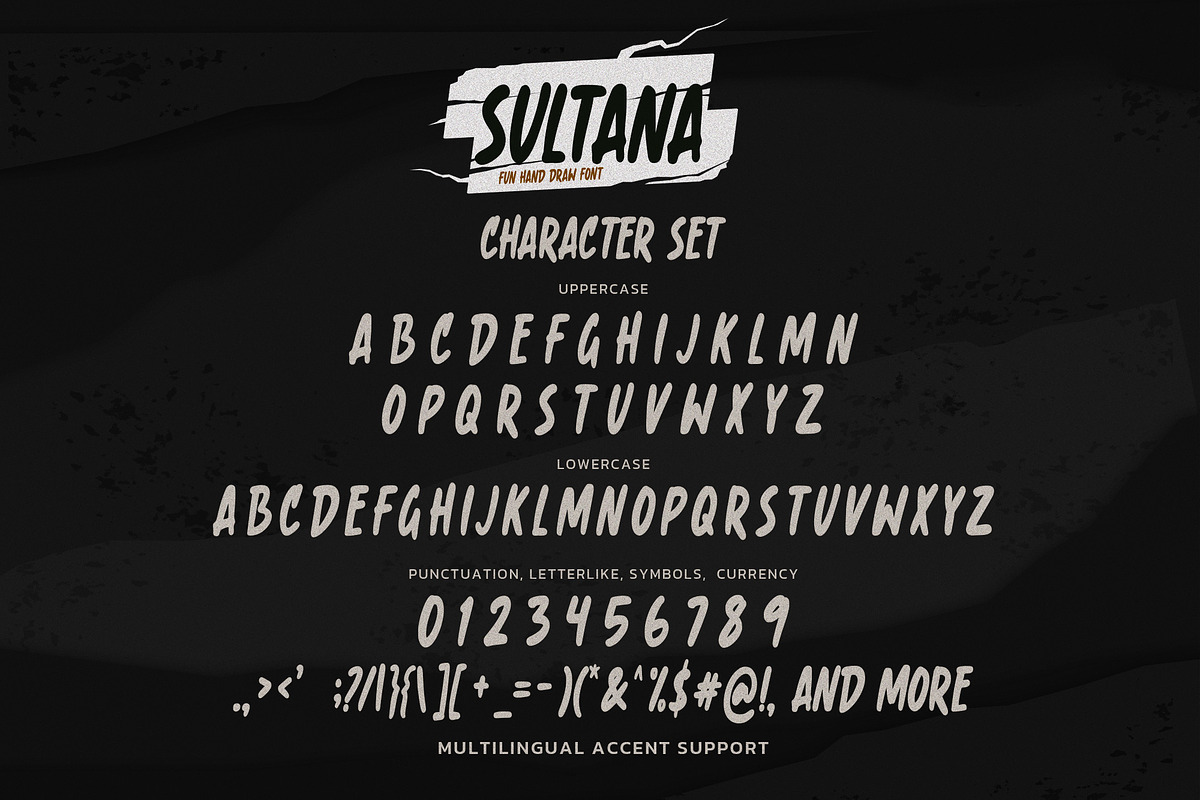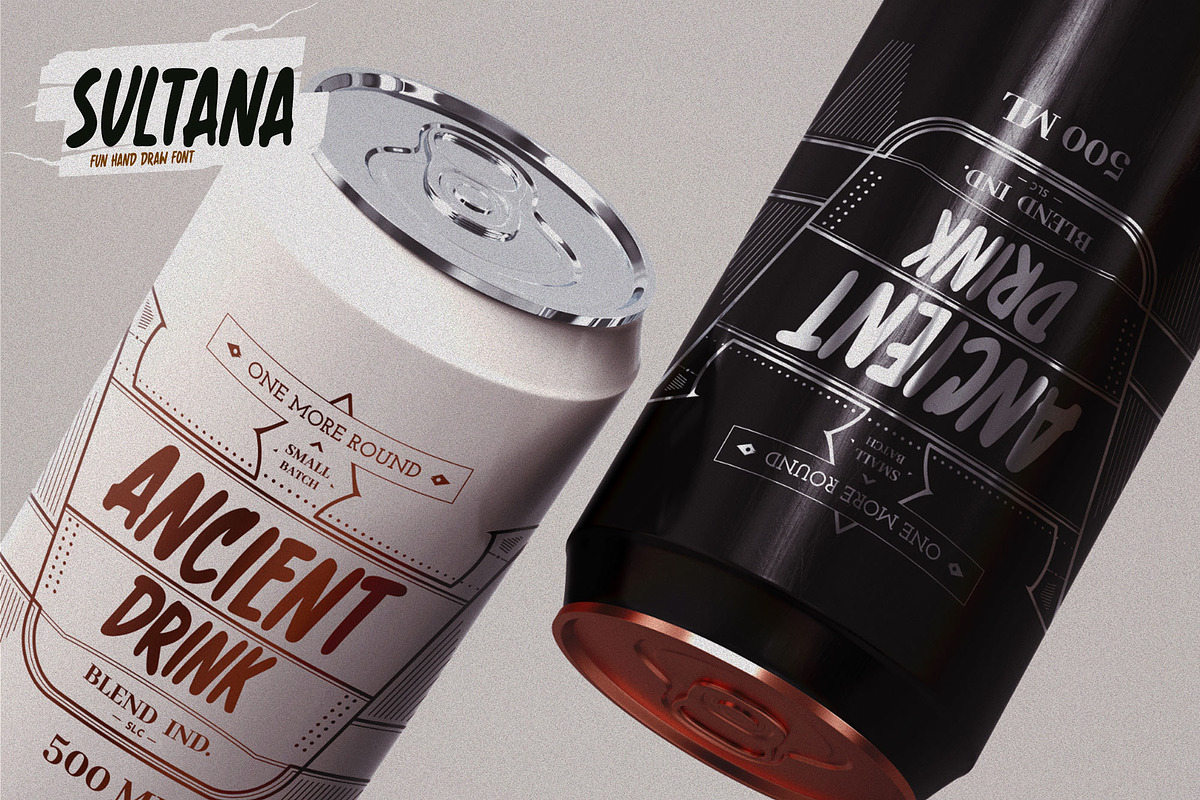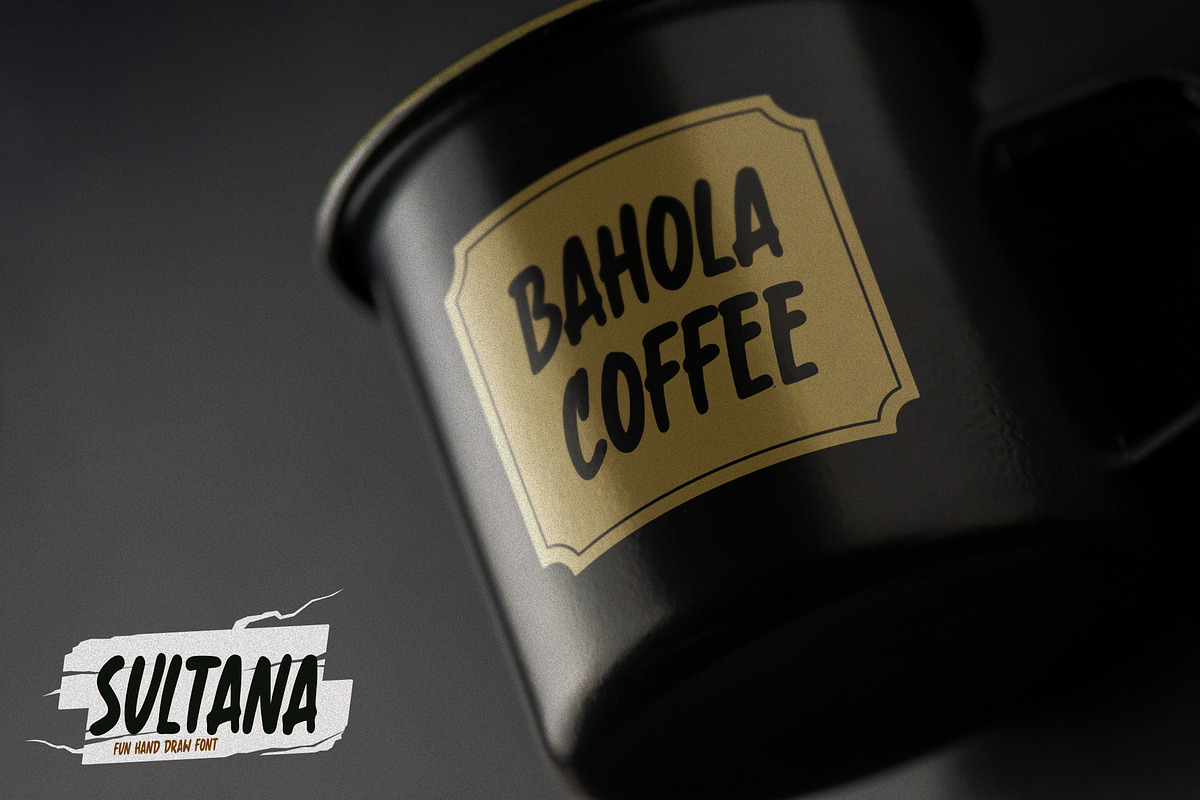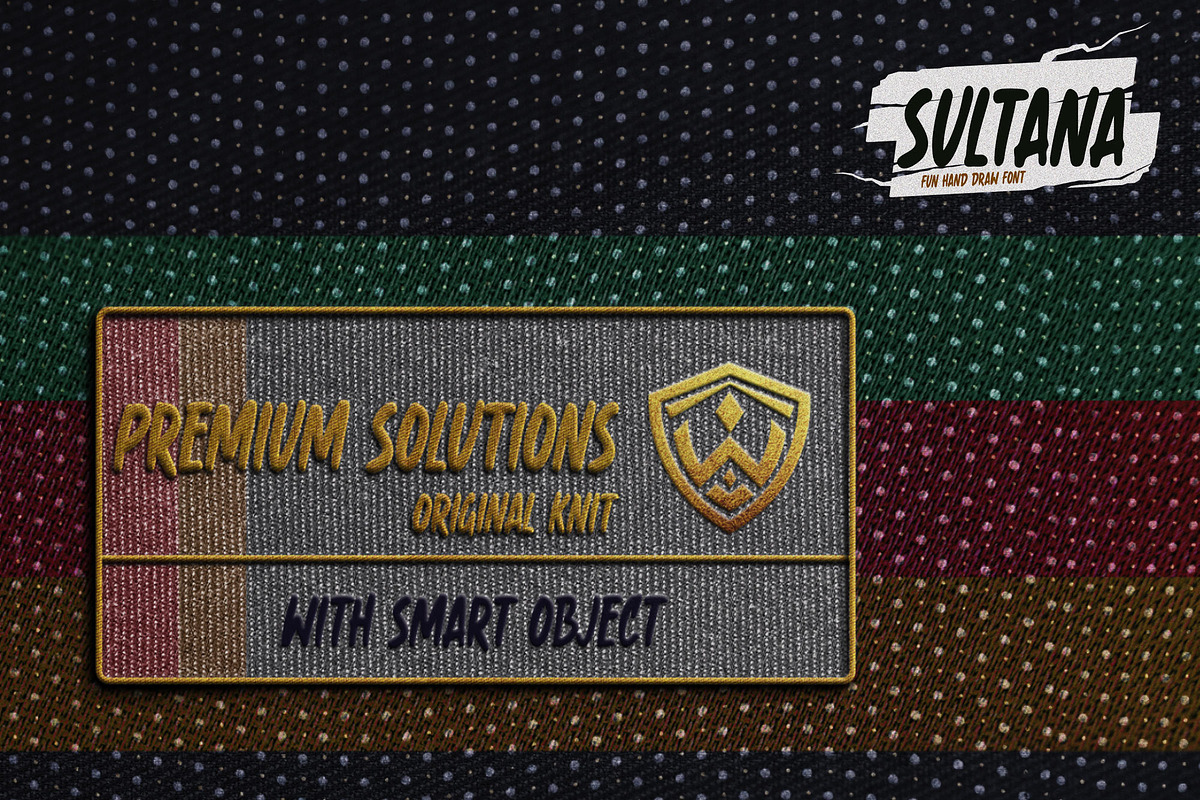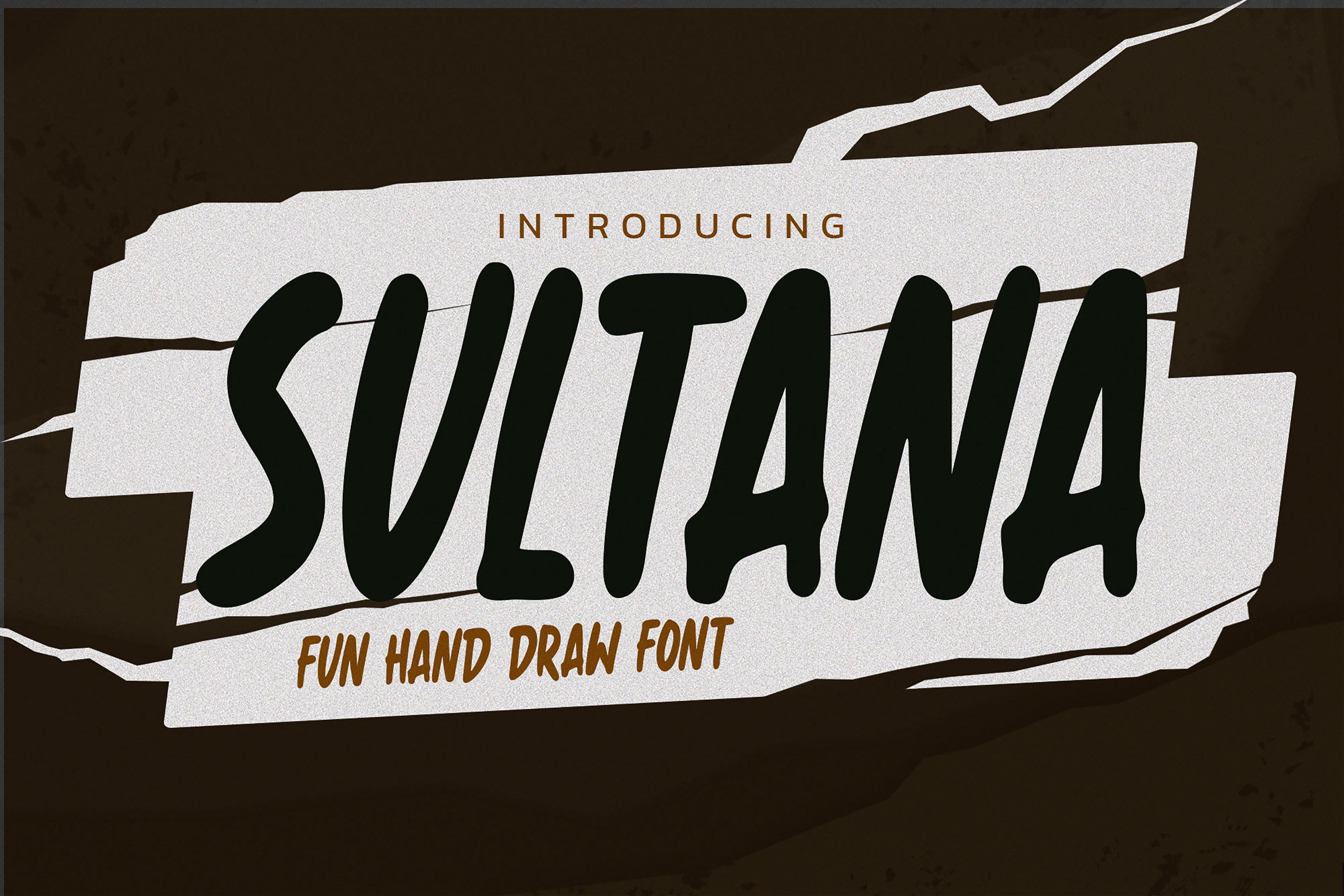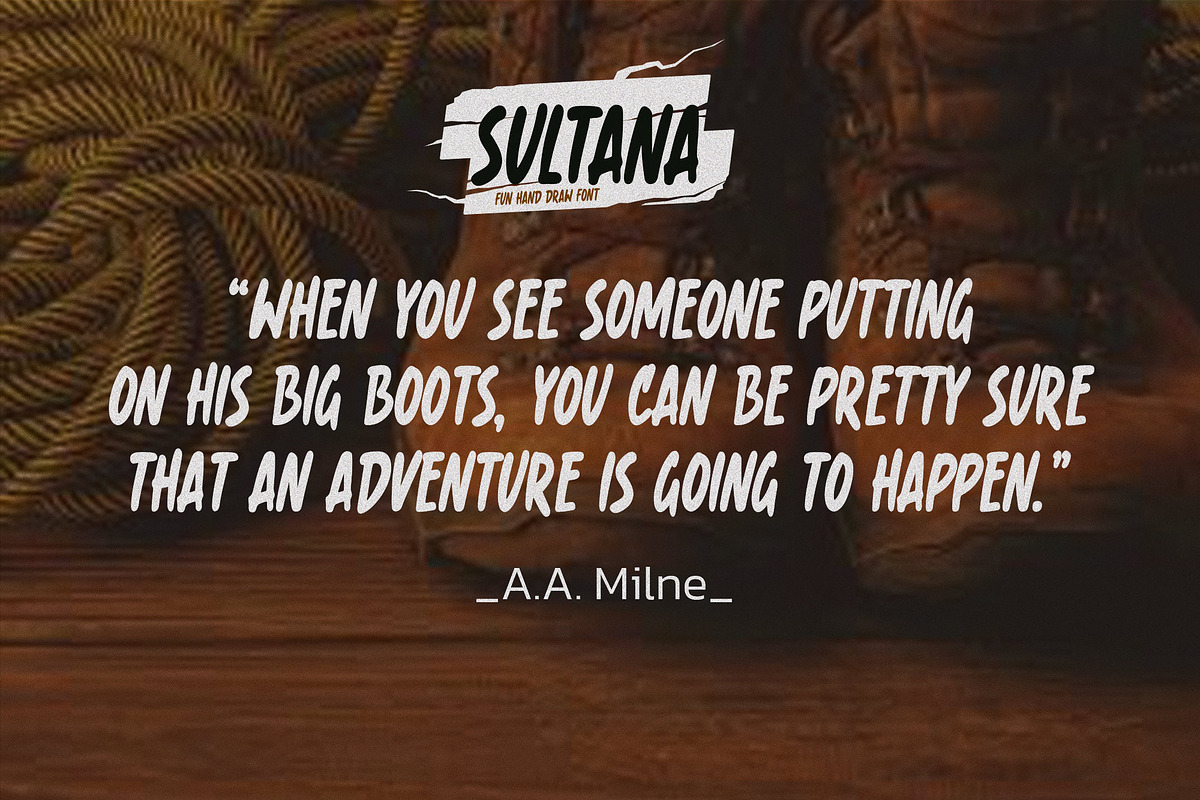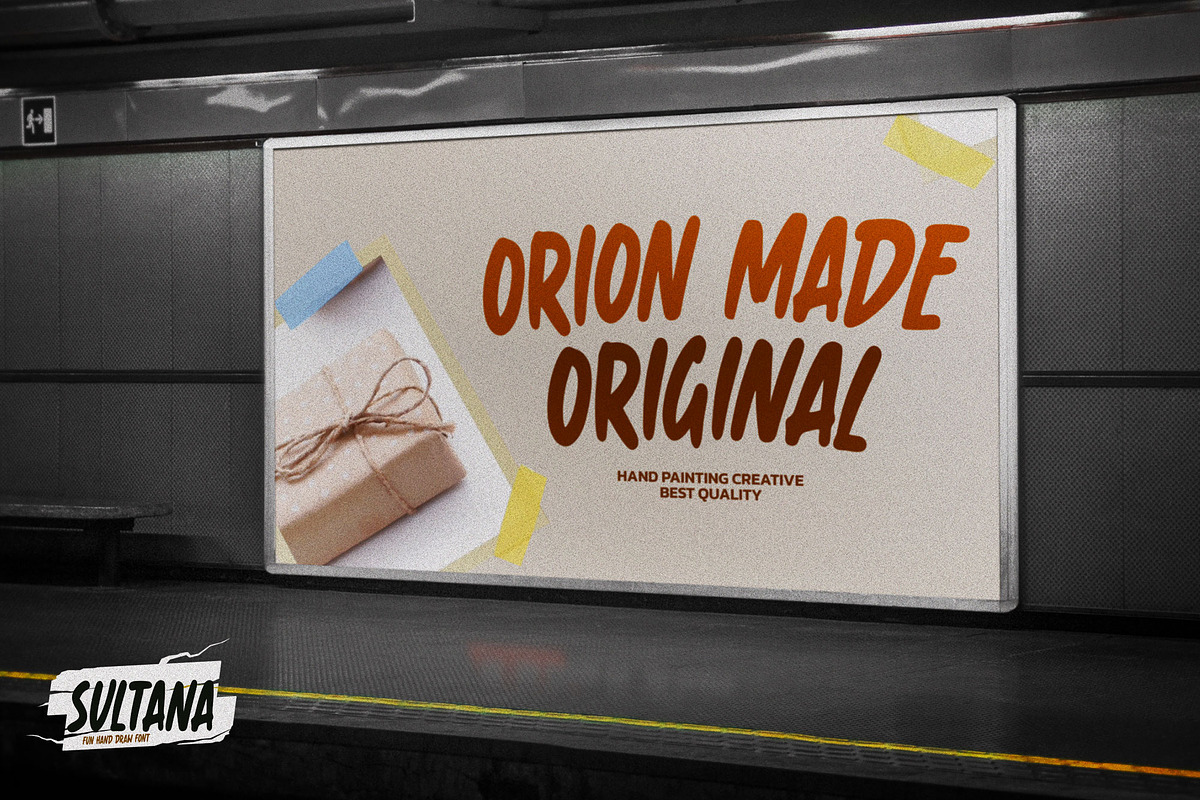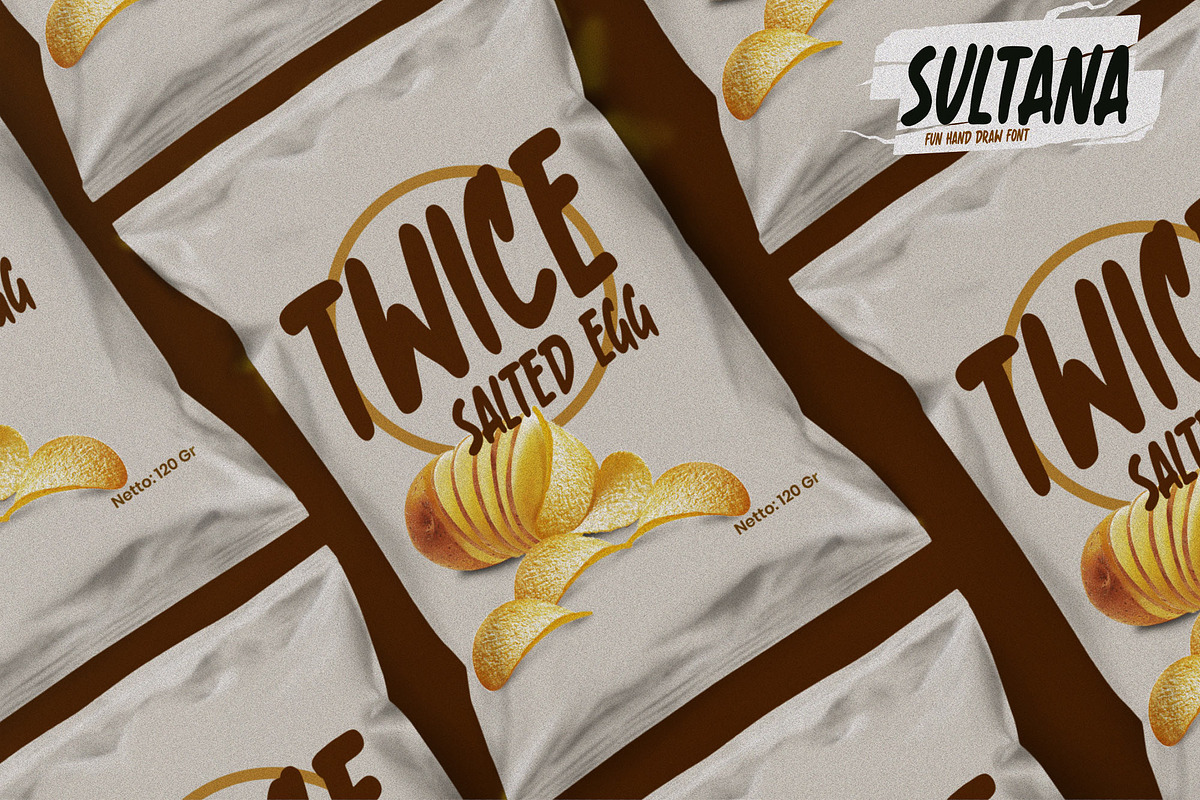
SULTANA - Fun Hand Drawn Font
Here comes a New font, Introducing SULTANA It's Fun Hand Drawn Font is a Natural Style and Authentic classy style, this font is great for your creative projects such as watermark on photography, and perfect for logos & branding, invitation,advertisements,product designs, stationery, wedding designs,label ,product packaging, special events or anything that need handwritting taste.
SULTANA is a Hand Drawn feel. This handmade font will make your design has a beautiful natural touch for each details. It is perfect for any design project as Invitation,logo, book cover, craft or any design purposes,photos, photography overlays, signs, window art, scrapbooking, tags and so much more! It is perfect for any design project as Invitation,logo, book cover, craft or any design purposes. This font is PUA encoded which means you can access all of the magical glyphs with ease!